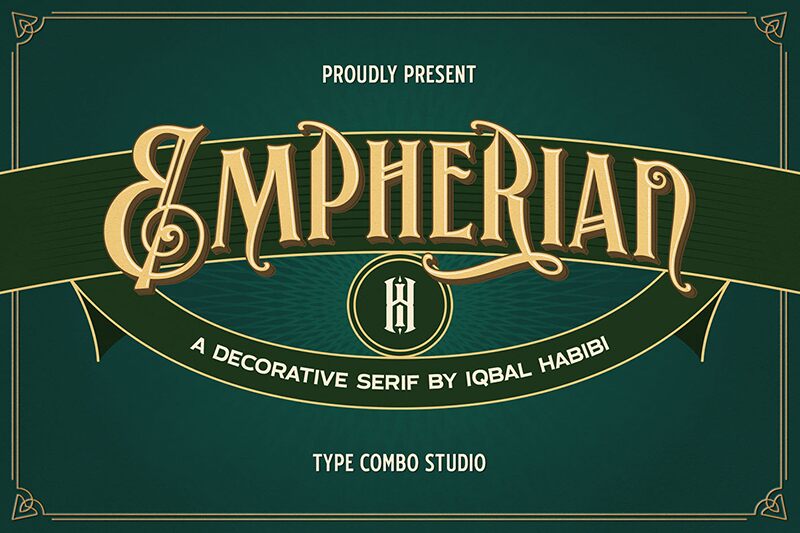
Empherian font by Type Combo is a free font that seamlessly blends elegance with retro charm. This condensed display font has intricate, calligraphic elements which give it a sophisticated, vintage feel. Its formal yet decorative nature is captured in the exquisite details of its serifs, inviting an elevated design while maintaining legibility.
The delicate curves and elegant finishes of Empherian showcase your creativity naturally across headlines, posters, product labels for tea or whiskey, letterheads & invitations.